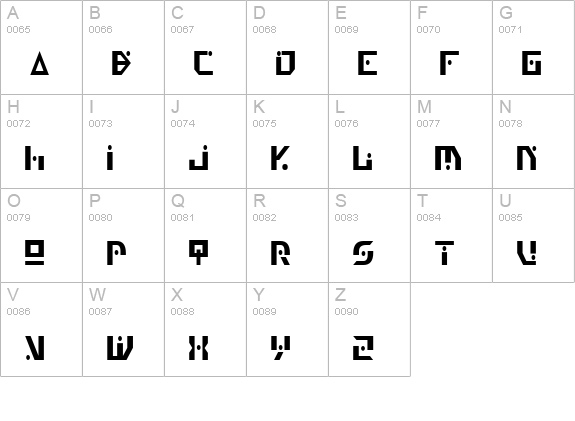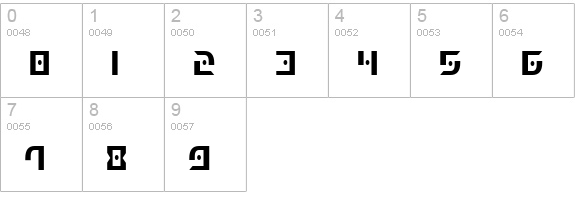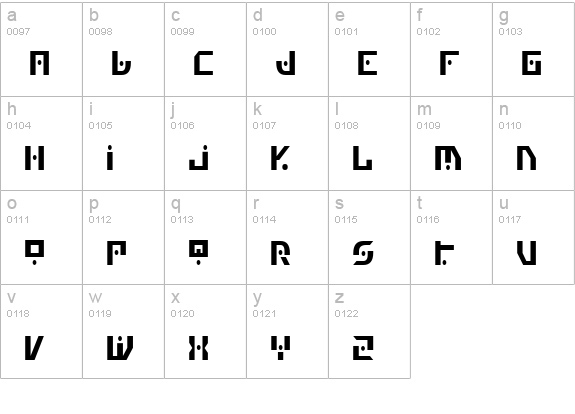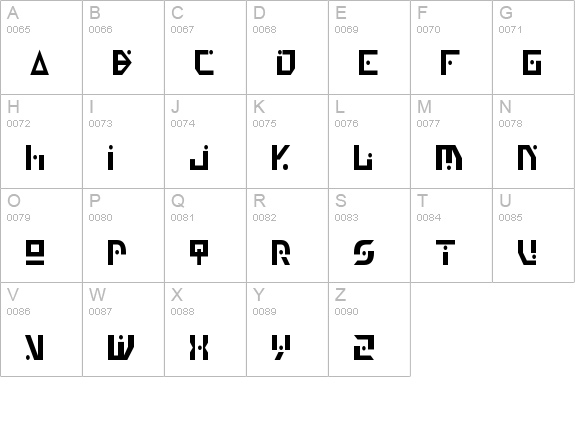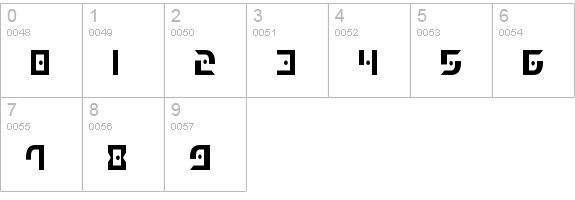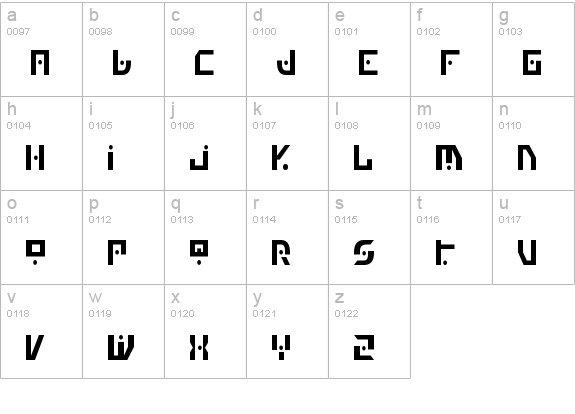
Generation Nth Condensed Font Details
Generation Nth Condensed is a distinctive, condensed-width variant in the Generation typeface family \xE2\x80\x94 well suited to design and typography projects.
Generation Nth Condensed font is a sleek and modern typeface that is perfect for adding a contemporary touch to your design projects. With its condensed letterforms and clean lines, this font exudes a sense of sophistication and professionalism. Whether you are designing a website, poster, or logo, Generation Nth Condensed font is sure to make a bold statement. The best part about Generation Nth Condensed font is that it is absolutely free to download at FontsMarket.com. This means you can easily access this high-quality font without having to spend a penny. So go ahead and give your projects a fresh and stylish look with Generation Nth Condensed font today!